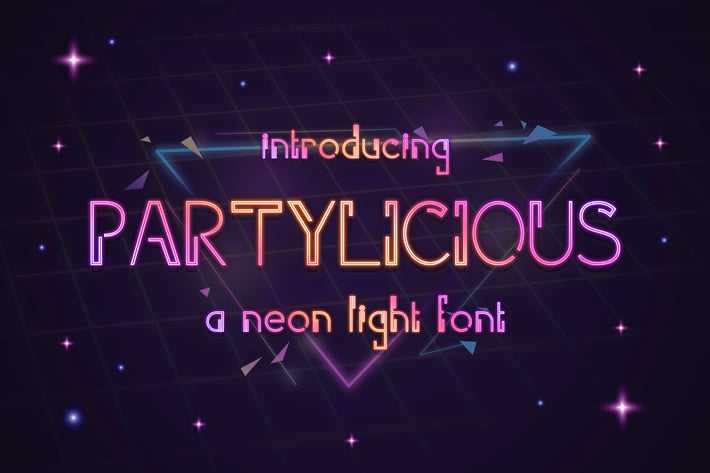
Parylicious – Modern Neon Light Font
Partylicious is a modern Neon Light Font, Suitable for modern night themes. It’s great for your store, branding, quote, and title for magazine, film, or product design.